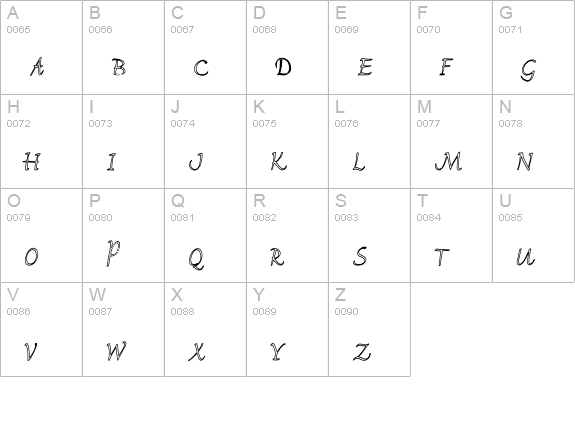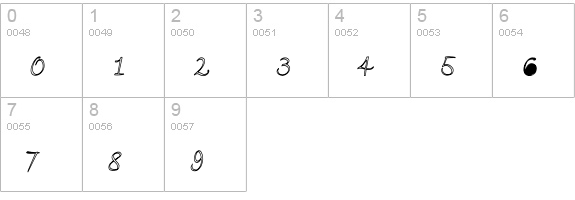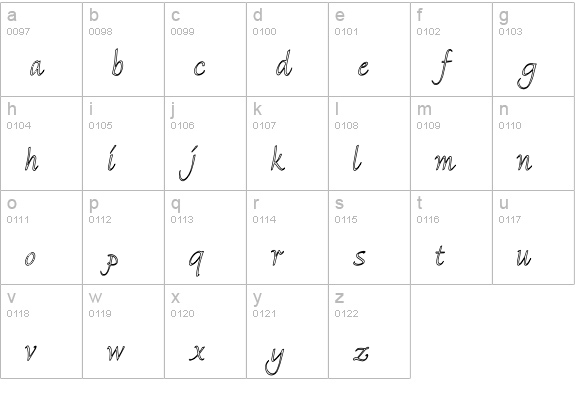
Pidemontal Font Details
Introducing Pidemontal, a unique and captivating font that effortlessly blends elegance with a touch of modernity. This remarkable typeface is perfect for a wide range of design projects, from branding and advertising to editorial and web design. Pidemontal boasts a distinctive personality that sets it apart from other fonts. Its carefully crafted letterforms exhibit a harmonious balance of sleek curves and sharp edges, creating a visual rhythm that captures attention and engages the reader. With its versatile nature, this font effortlessly adapts to various design contexts, allowing you to express your creativity without limitations. What truly sets Pidemontal apart is that it is freely available to download at FontsMarket.com. This means that you can enjoy the exceptional quality and versatility of this font without any cost. Whether you are a professional designer or a hobbyist, having access to such a high-quality font for free opens up endless possibilities for your creative endeavors. With Pidemontal, you can elevate your designs to new heights. Its sophisticated and modern aesthetic adds a touch of elegance to any project, making it the perfect choice for logos, headlines, posters, invitations, and more. The versatility of this font allows it to effortlessly adapt to both digital and print mediums, ensuring that your creations make a lasting impression. In addition to its stunning visual appeal, Pidemontal also offers a user-friendly experience. Its well-crafted letterforms ensure legibility, making it easy for readers to engage with your content. Whether used in small or large sizes, this font maintains its clarity and readability, ensuring that your message is effectively communicated. So why wait? Download Pidemontal today from FontsMarket.com and unlock a world of design possibilities. With its exceptional quality, remarkable versatility, and the added benefit of being free, Pidemontal is a font that every designer should have in their toolkit. Let your creativity soar and make a lasting impression with this captivating typeface.